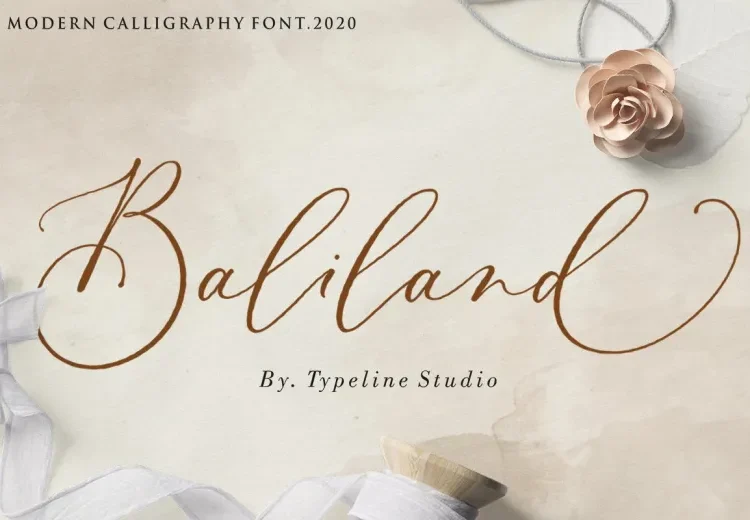
Baliland Font
Baliland is a beautifully crafted calligraphy font inspired by the enchanting beauty and romantic ambiance of Bali Island. Its flowing, graceful strokes capture the essence of tropical charm and elegance, making it an excellent choice for wedding invitation cards, RSVP cards, and other bridal stationery. Whether you’re designing feminine logos or creating a cohesive branding experience, Baliland’s sophisticated style brings a touch of romance and refinement to your projects.
This font is designed to evoke feelings of love and celebration, making it perfect for special occasions and stylish designs. Its versatility ensures it can complement both traditional and modern aesthetics, offering a timeless appeal for creatives seeking to elevate their work with a delicate yet impactful typeface.